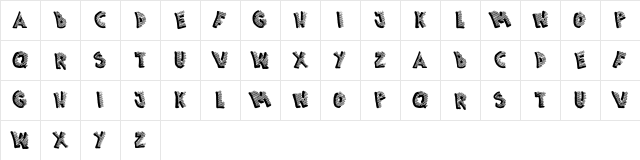
Picasa Regular Free Font
Picasa Regular
Picasa Family
Picasa Regular
Design Context for Picasa
Picasa is a composed and adaptable typeface that performs quietly and consistently across a wide range of design contexts.
Pro Tip: Use Picasa in both headline and body roles to test its range before committing to a single application.